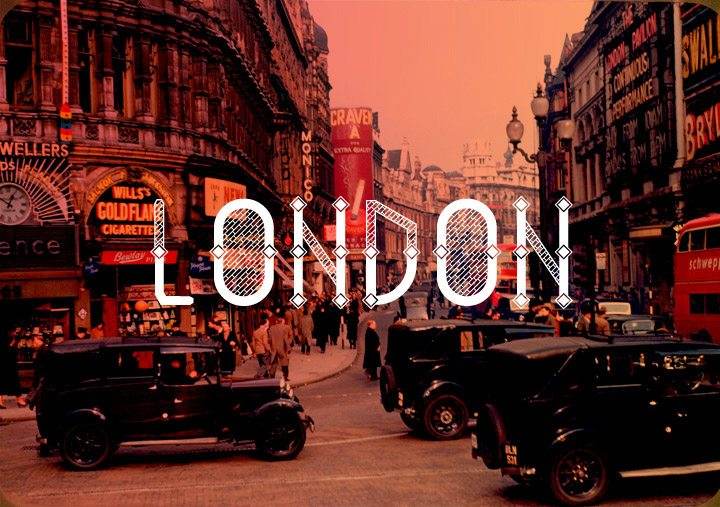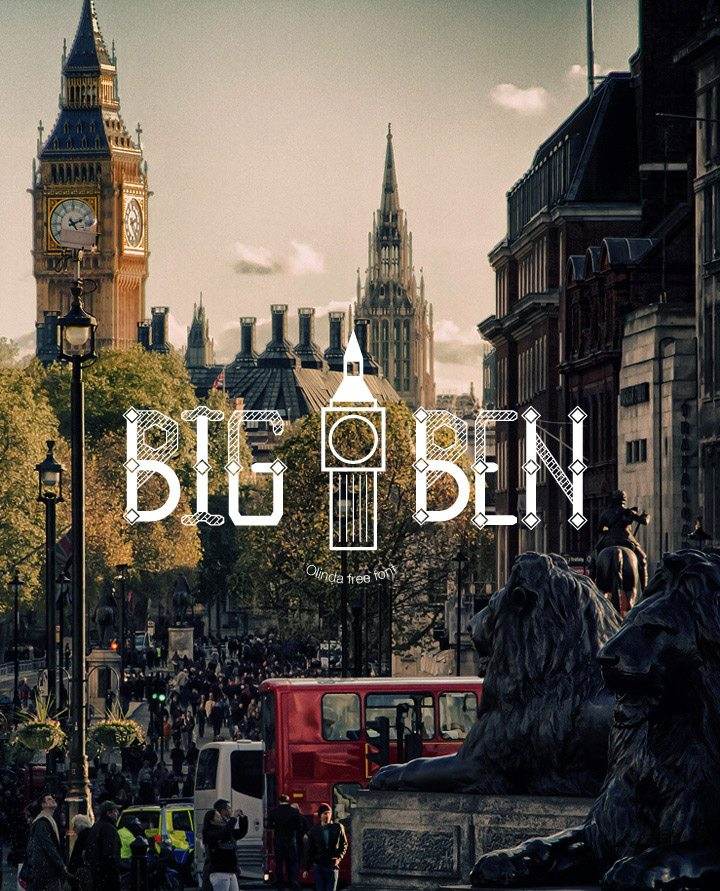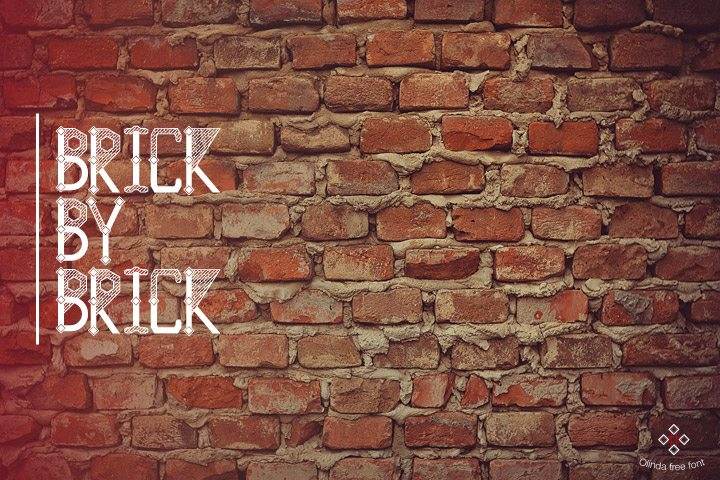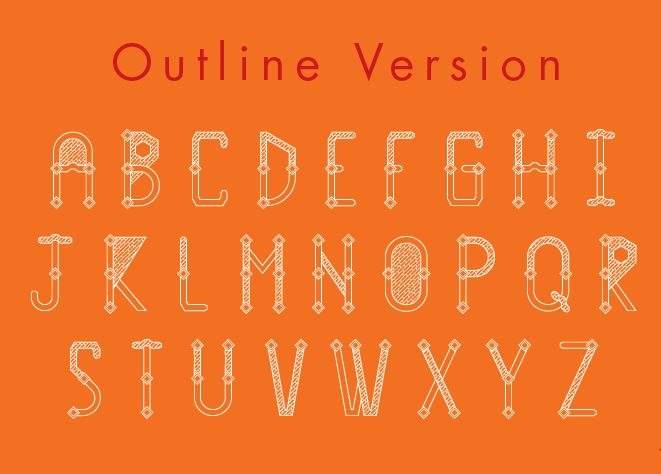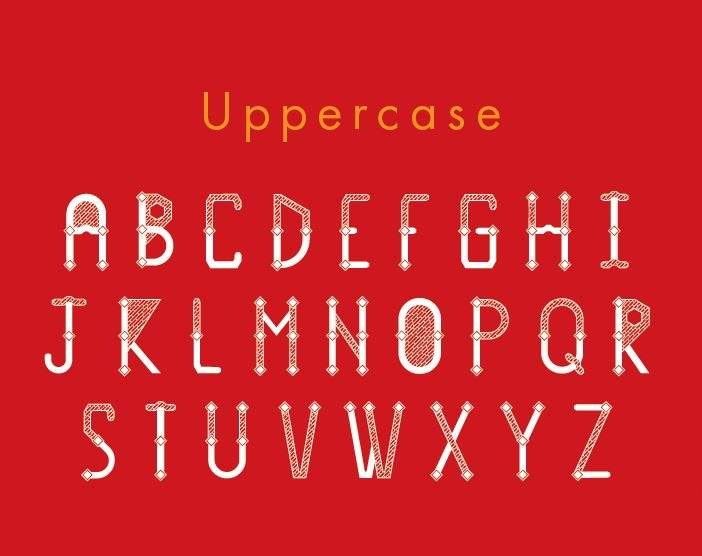
Free Font Of The Day #86 – Olinda Font
Olinda Font
The Font is inspired by the specific style of Victorian architecture, which is generally found all over the globe, yet is mostly based on the typical Victorian houses in the UK.